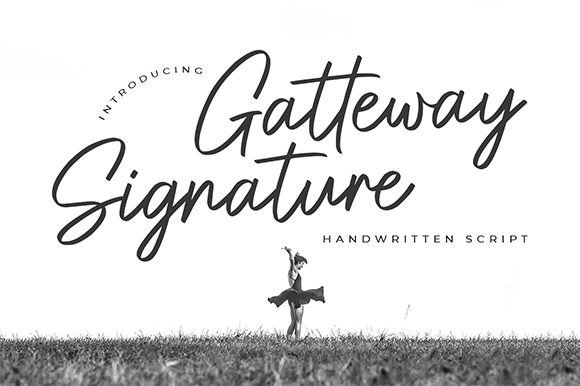
Gatteway Signature Font
Thank you for looking Gatteway Font. It’s a stunning signature font with a bold vibe. It will turn any design idea into a true standout. Gatteway Signature is a beautiful, modern and elegant script.
Smoothly flowing, perfect for designing blog logo, website logo, print ads, book covers, film covers, apparel, cards, logos, posters, etc. Opentype features gives you more alternatives in designing.